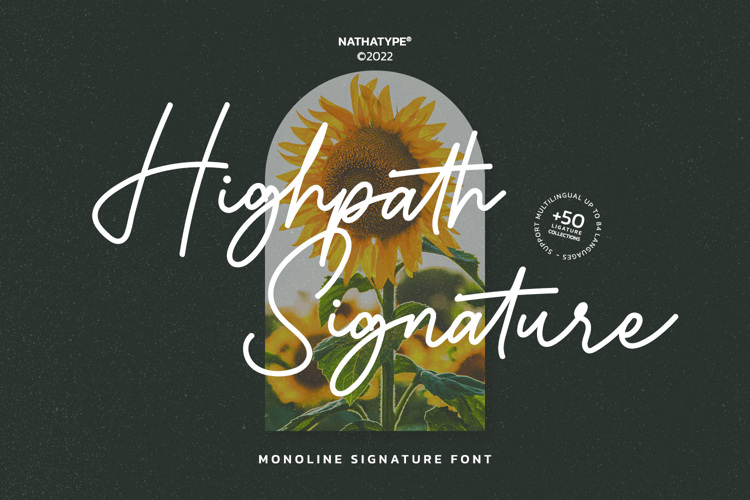
Highpath Signature Font
Highpath Signature is a lovely signature font designed with classic vibes. The font always support multi languages to make your brand globally acceptable. The upper and lowercase with simple shapes, making it very suitable to be used on any purposes. It also creates a friendly mood and elegance.
Features:
• Upper and lowercases
• Ligatures
• Stylistic Set